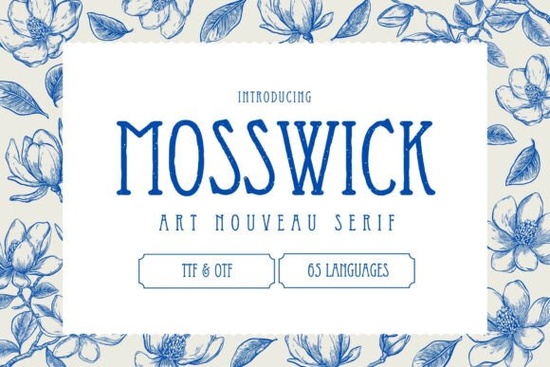
Looking for a font that brings a touch of old-world elegance to your designs? The Mosswick Font is a standout choice for anyone looking to add a vintage feel to their projects. With its Art Nouveau influences, this serif typeface offers a refined, aged look that feels both authentic and luxurious. Whether you're working on packaging, invitations, or editorial layouts, Mosswick delivers a sense of history and sophistication that’s hard to match.
The Mosswick Font draws inspiration from antique typography, vintage labels, and the flowing lines of the Art Nouveau movement. Its ornamental serifs and subtle imperfections give it a weathered, handcrafted appearance, making it ideal for designs that aim to evoke a sense of timelessness. The font’s distressed texture adds depth and character, making it perfect for luxury branding, artisanal products, and creative projects that value authenticity.
What Makes Mosswick Unique?
Mosswick stands out due to its blend of elegance and age. Unlike modern fonts that often feel clean and sterile, this typeface embraces imperfections, giving it a more organic and nostalgic feel. The curves are graceful, and the details are intricate, creating a visual appeal that feels both sophisticated and warm. This makes it a great option for designers who want to convey a sense of heritage or craftsmanship in their work.
One of the key features of Mosswick is its versatility. It works well in a variety of contexts, from high-end product labels to elegant event invitations. Its ability to adapt to different design styles without losing its unique character makes it a valuable addition to any designer’s toolkit. Whether you're creating a custom logo or designing a magazine layout, Mosswick can help you achieve a look that feels both classic and contemporary.
Best Uses for Mosswick Font
This font is particularly well-suited for luxury and artisanal branding. It pairs beautifully with products that emphasize quality, such as skincare, cosmetics, and handmade goods. Its aged appearance also makes it a strong choice for wine labels, candle packaging, and boutique product designs. For print-on-demand sellers, Mosswick can help create visually appealing and distinctive designs that stand out in a crowded market.
Designers working on editorial projects will also find Mosswick useful. Its decorative elements add a layer of visual interest that can enhance the overall aesthetic of a layout. Whether used as a headline or a body text, it brings a level of refinement that complements both digital and print media. For those looking to add a vintage flair to their work, Mosswick is an excellent option.
When choosing a font, consider the tone and message you want to convey. Mosswick is ideal for projects that aim to evoke a sense of history, craftsmanship, or luxury. Its aged texture and ornate details make it a strong choice for designers who want to add a unique and memorable element to their work.